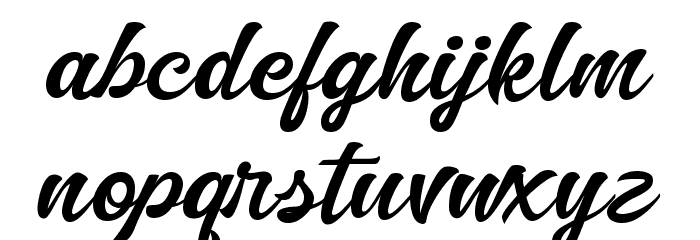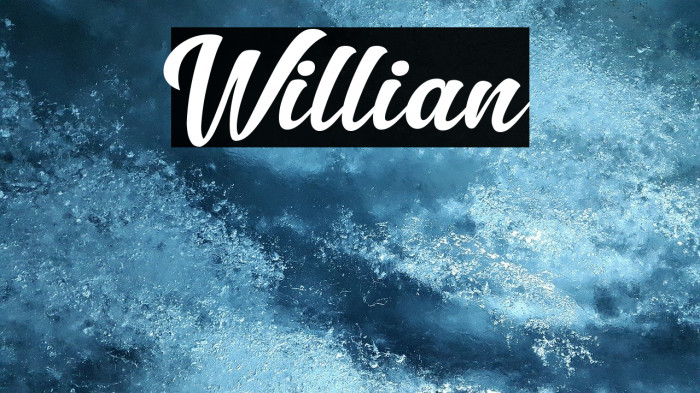
Willian Font
This font features a bold and flowing script style, characterized by its elegant and dynamic curves. The letters are interconnected, creating a sense of fluidity and movement. The uppercase letters are prominent and expressive, while the lowercase letters maintain a consistent rhythm. The numerals are well-integrated into the design, matching the overall aesthetic. Special characters are crafted with the same attention to detail, ensuring a cohesive look across all glyphs. The font exudes a sense of sophistication and flair, making it suitable for projects that require a touch of elegance and personality.
A bold, flowing script font with elegant curves and interconnected letters.
- Proposed Projects: Ideal for wedding invitations, branding, logo design, and elegant packaging.
- Overall Style: Elegant
- Use Case: Logos, Invitations, Branding